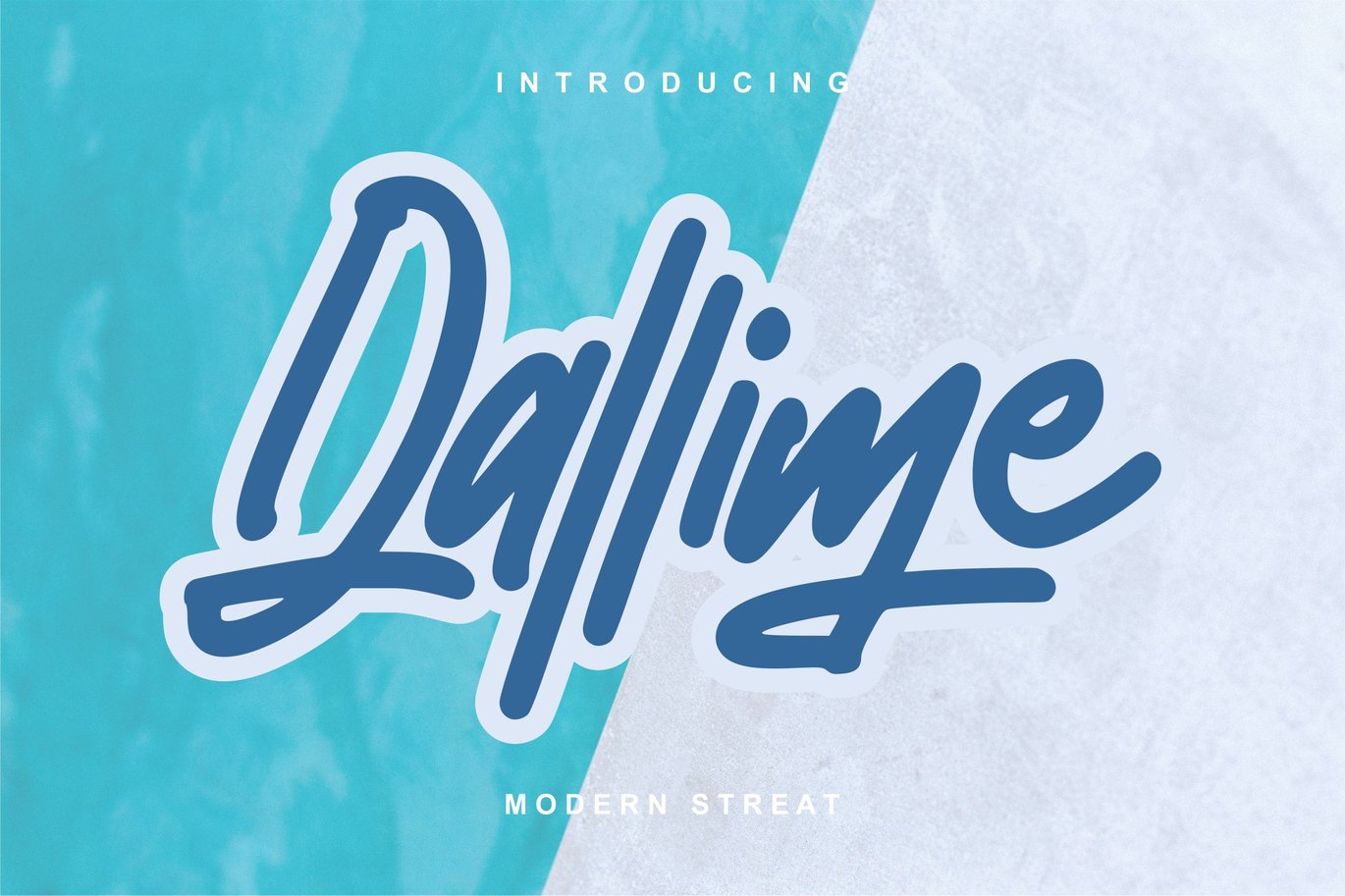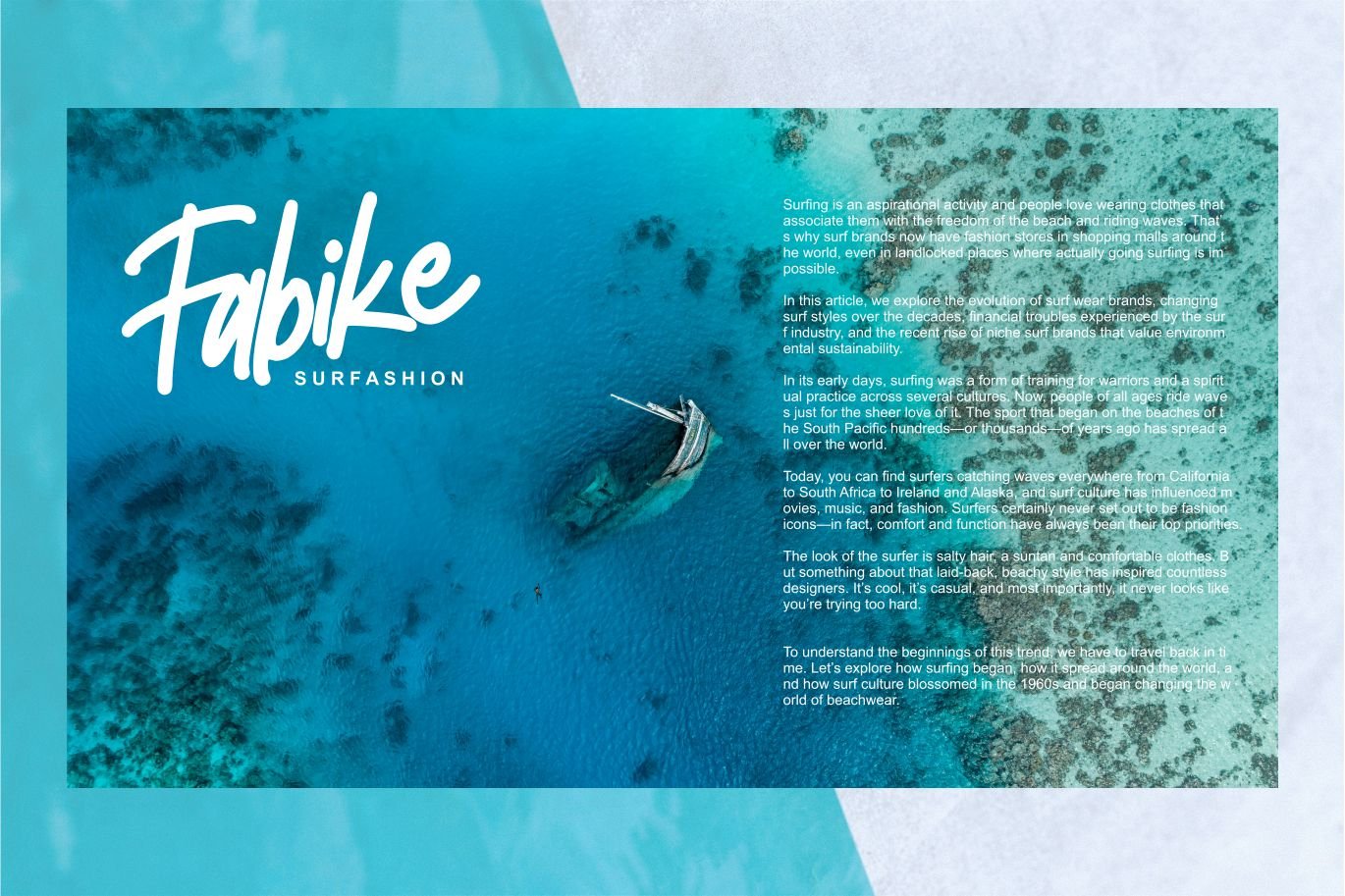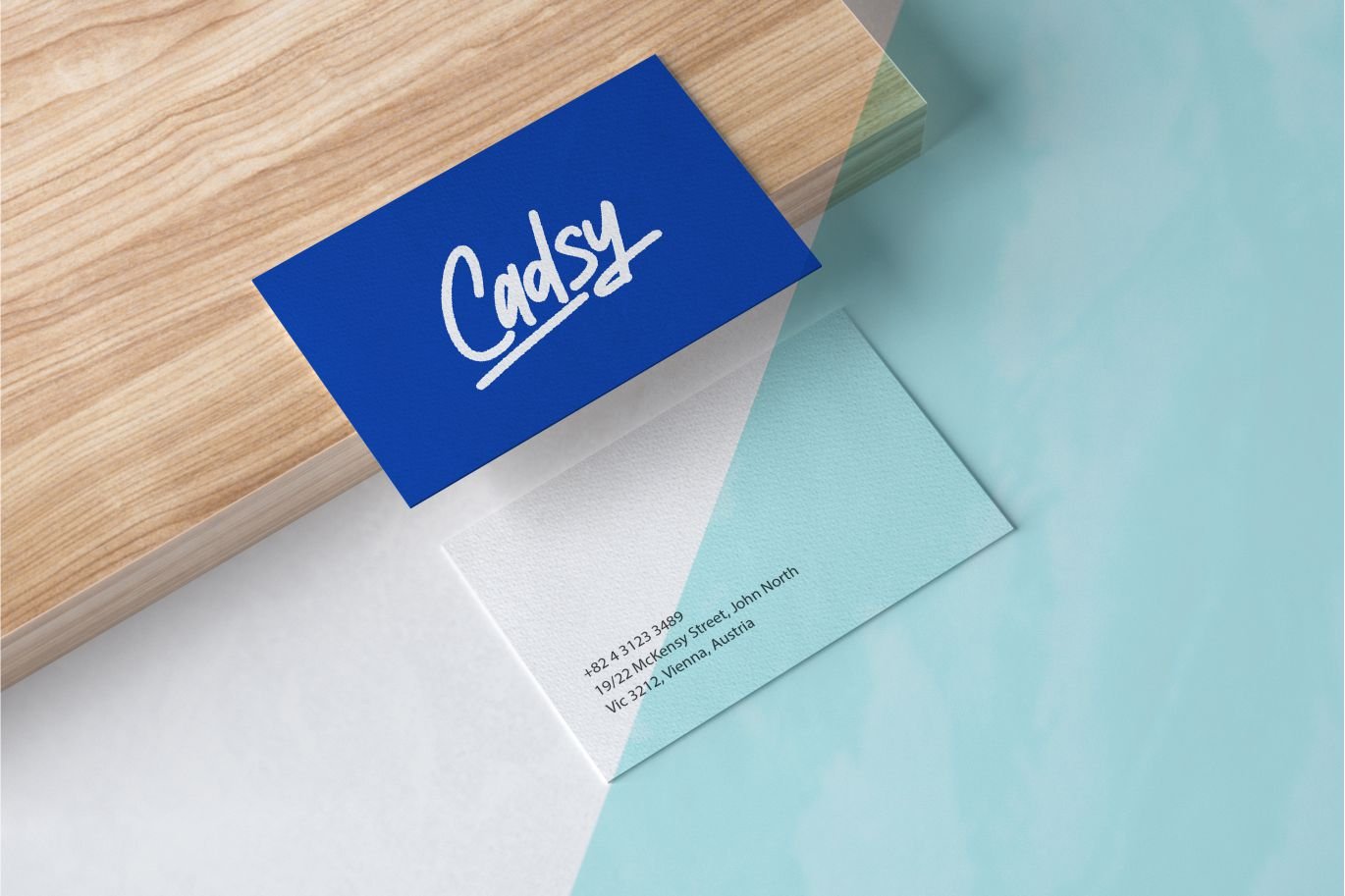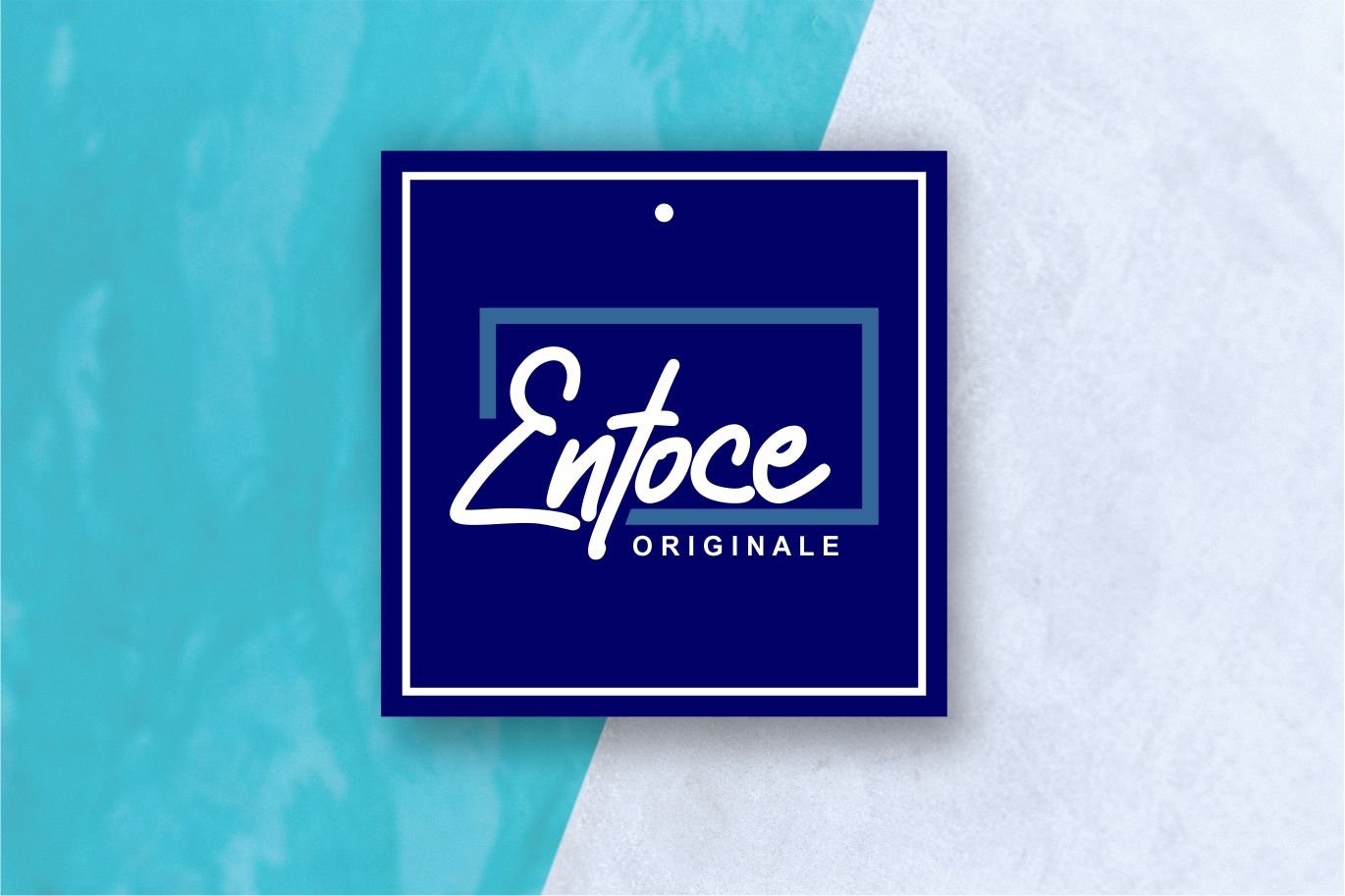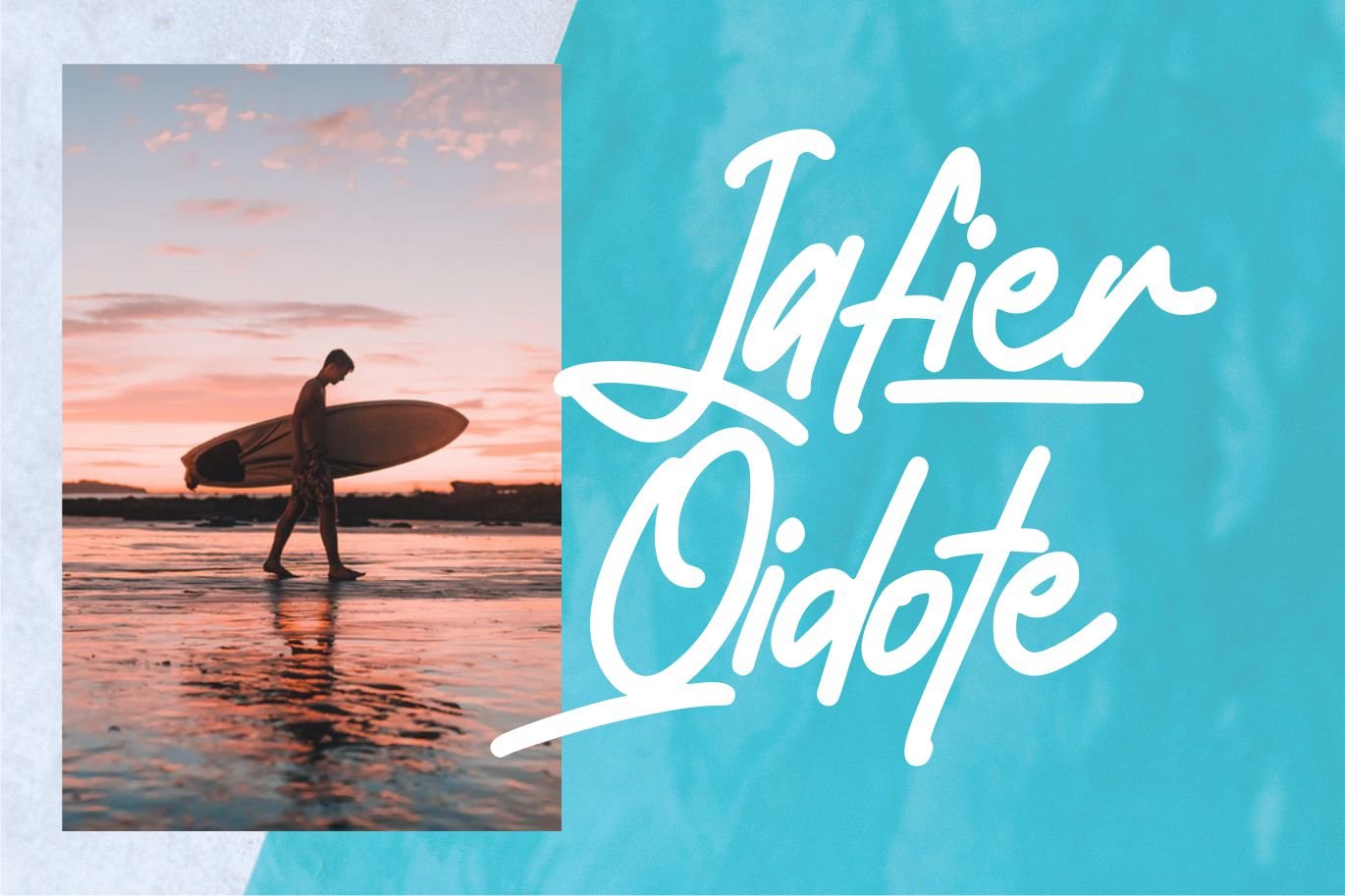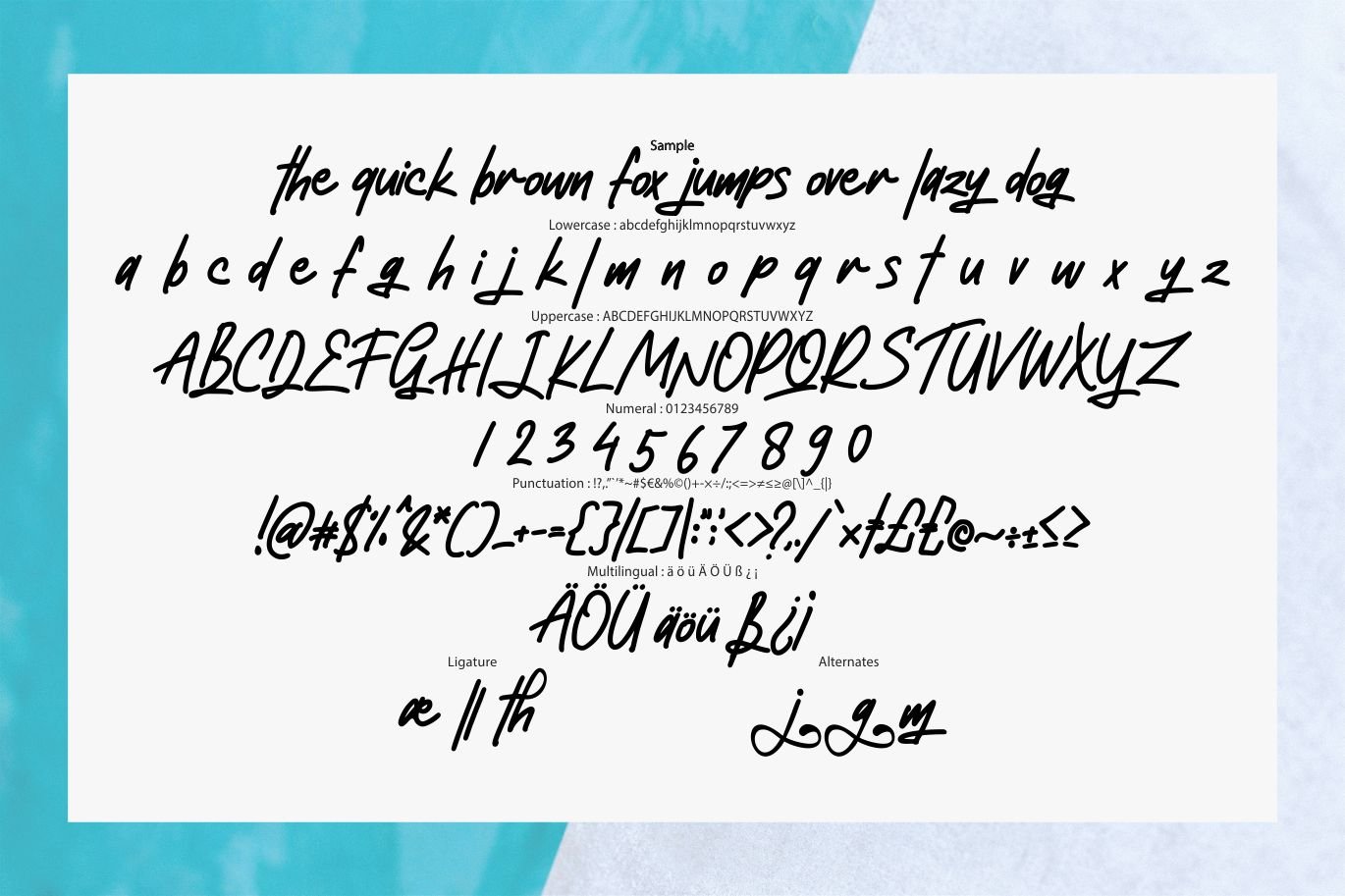
Dallime | Modern Street Font
Dallime | Modern Street Font with a calligraphy style, So beautiful on invitation like greeting cards, branding materials, business cards, quotes, posters, and more!